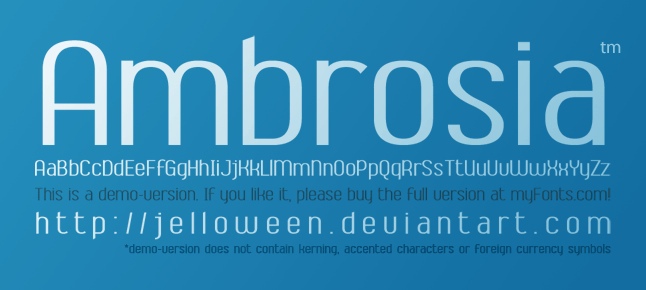
Ambrosia Font
Ambrosia Font is perfect for divine dessert branding, heavenly bakery signage, elegant café menus, luxury confectionery packaging, gourmet restaurant materials, celestial event invitations, premium wine labels, sophisticated catering services, ethereal wedding designs, and exquisite culinary presentations.
Ambrosia Font creates excitement because it embodies the divine essence and heavenly elegance of mythological perfection with its graceful letterforms and celestial character design. The font's ethereal beauty and godlike sophistication instantly convey transcendent quality and divine inspiration, making any brand appear blessed and extraordinarily refined. Its carefully crafted celestial details and mythological character create an immediate sense of divine elegance that captivates audiences seeking heavenly experiences, transcendent quality, and products that celebrate the sublime beauty of perfection and divine craftsmanship.
The Ambrosia Font family includes multiple weights and styles: Regular, Bold, Light, Medium, Italic, Condensed, Extended, Divine, Ethereal, and Celestial versions. Each variant maintains the font's signature heavenly character while offering different levels of divine elegance and mythological styling suitable for various luxury and gourmet applications.